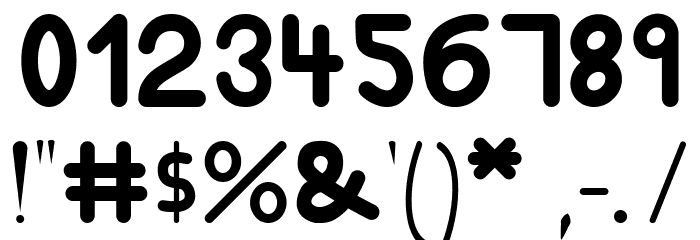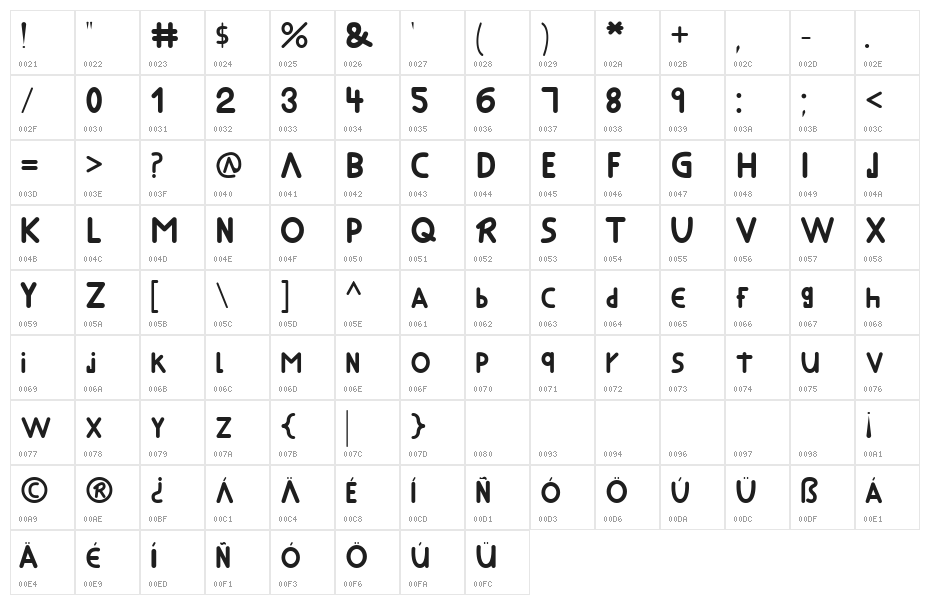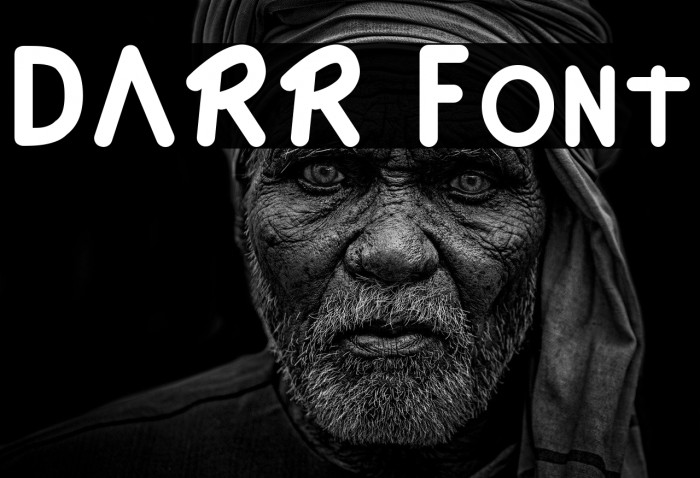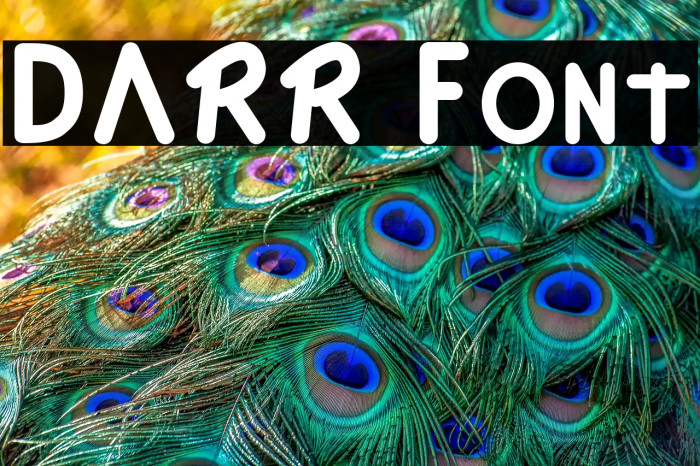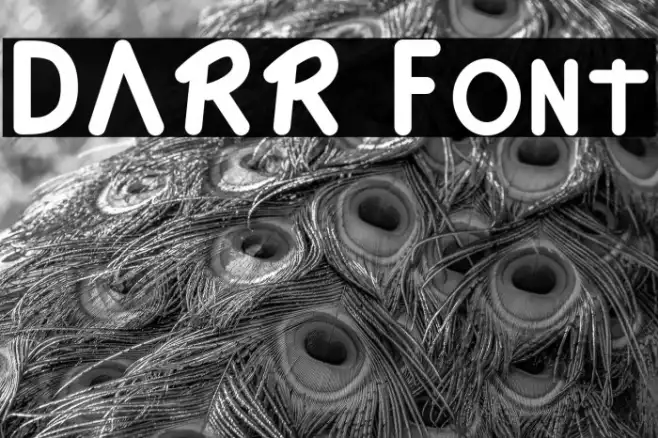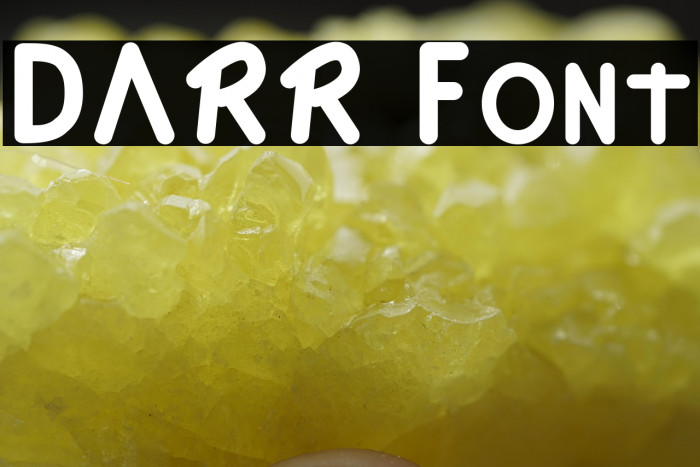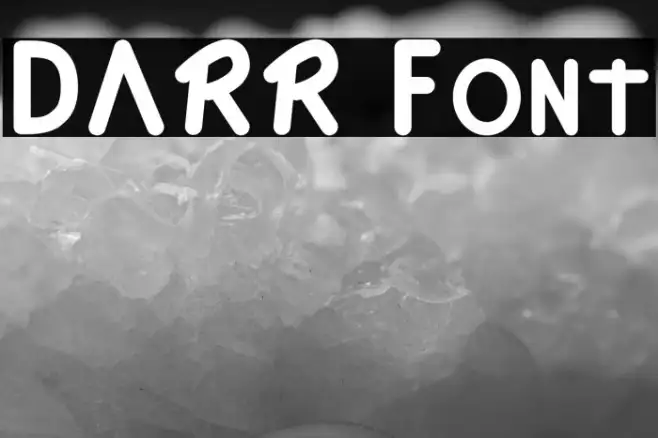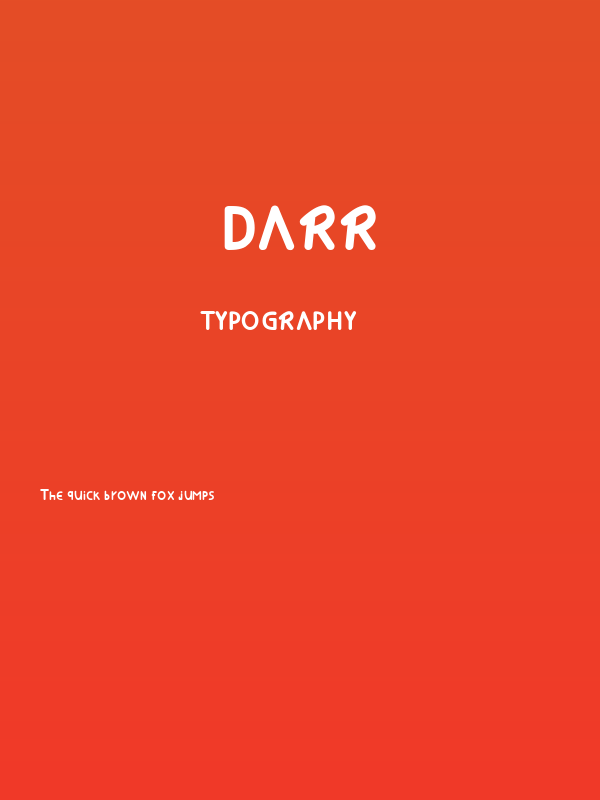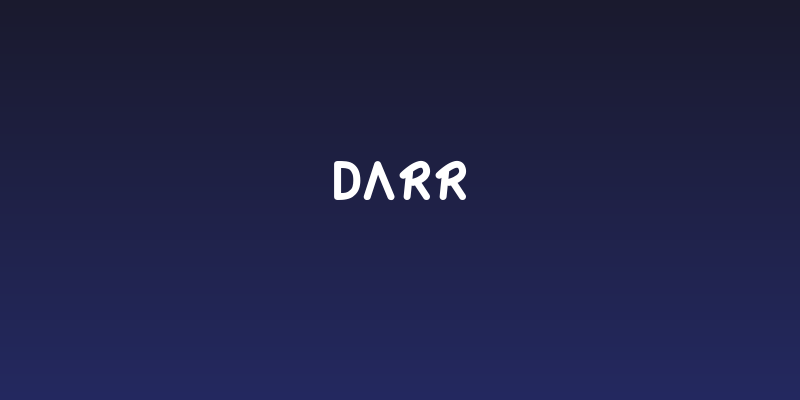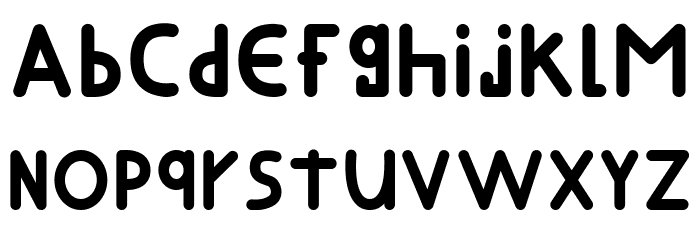
DARR Font
DARR Description
This font features a playful and rounded style, characterized by its smooth curves and uniform stroke width. The letters are bold and have a friendly appearance, making them highly legible and approachable. The uppercase and lowercase letters maintain a consistent design, with rounded edges and a slightly condensed form. The numerals and special characters follow the same rounded aesthetic, ensuring a cohesive look across all elements. This font's simplicity and warmth make it suitable for a variety of applications, from children's books to casual branding.
| Proposed Projects | Ideal for children's books, casual branding, playful posters, and friendly product packaging. |